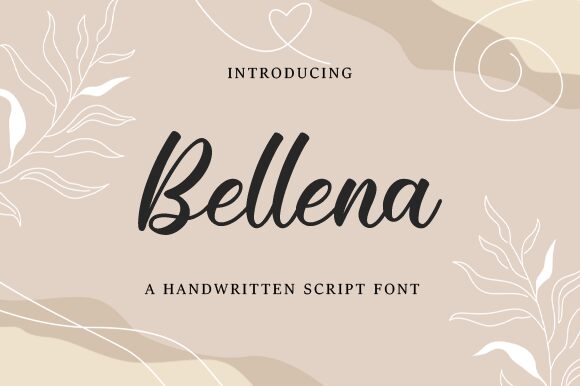
Bellena font, one of Nirmala Creative’s captivating calligraphic typefaces, has an elegant and timeless charm. It has script-like lines that flow and bring to mind refinement in nature and many other contemporary things. Various design applications such as elegant invitations and stationery or impactful branding and editorial layouts can take advantage of the font’s individualism.
Designers looking for a touch of style in their projects can opt for Bellena because it is versatile. It is great for use on luxury product packaging, eye-catching headings or captivating sub-headings among others; this is due to its calligraphic touch and natural shapes.